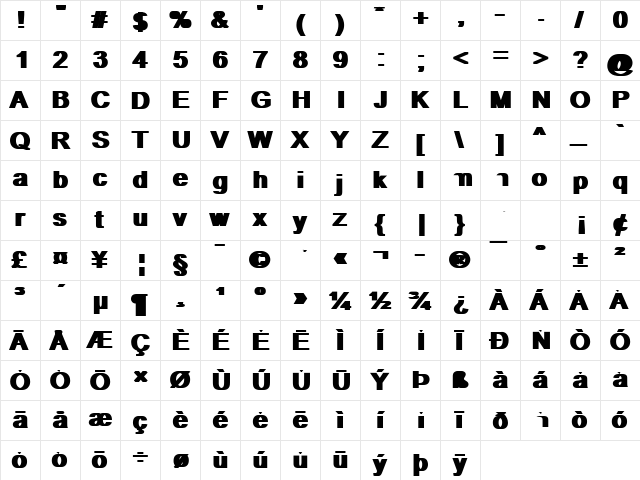
Communication37 Bold Font Preview
Communication37 Bold
Design Context for Communication37 Typeface
Communication37 takes a measured approach to typography — its balanced proportions and neutral character make it a reliable workhorse for both digital and print work. The heavy weight commands attention and anchors typographic hierarchies.